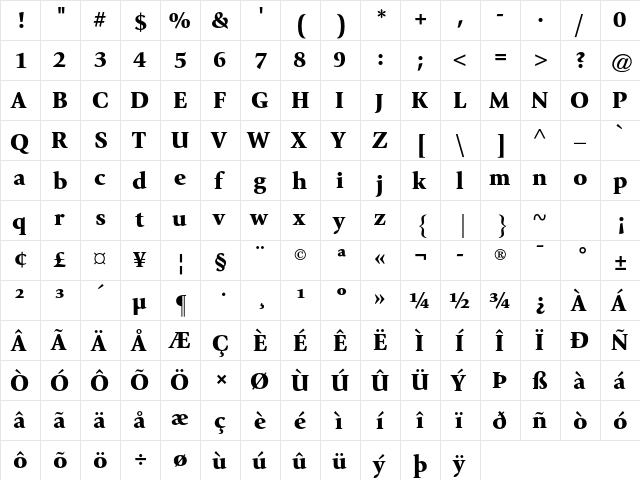
ITC Giovanni Std Black Font Preview
ITC Giovanni Std Black
ITC Giovanni Std Black Font Details
| Designer | Robert Slimbach |
Design Context for ITC Giovanni Std Typeface
ITC Giovanni Std offers clean, dependable letterforms without strong stylistic allegiance, making it a practical choice for designers who need flexibility.
Pro Tip: Use ITC Giovanni Std in both headline and body roles to test its range before committing to a single application.